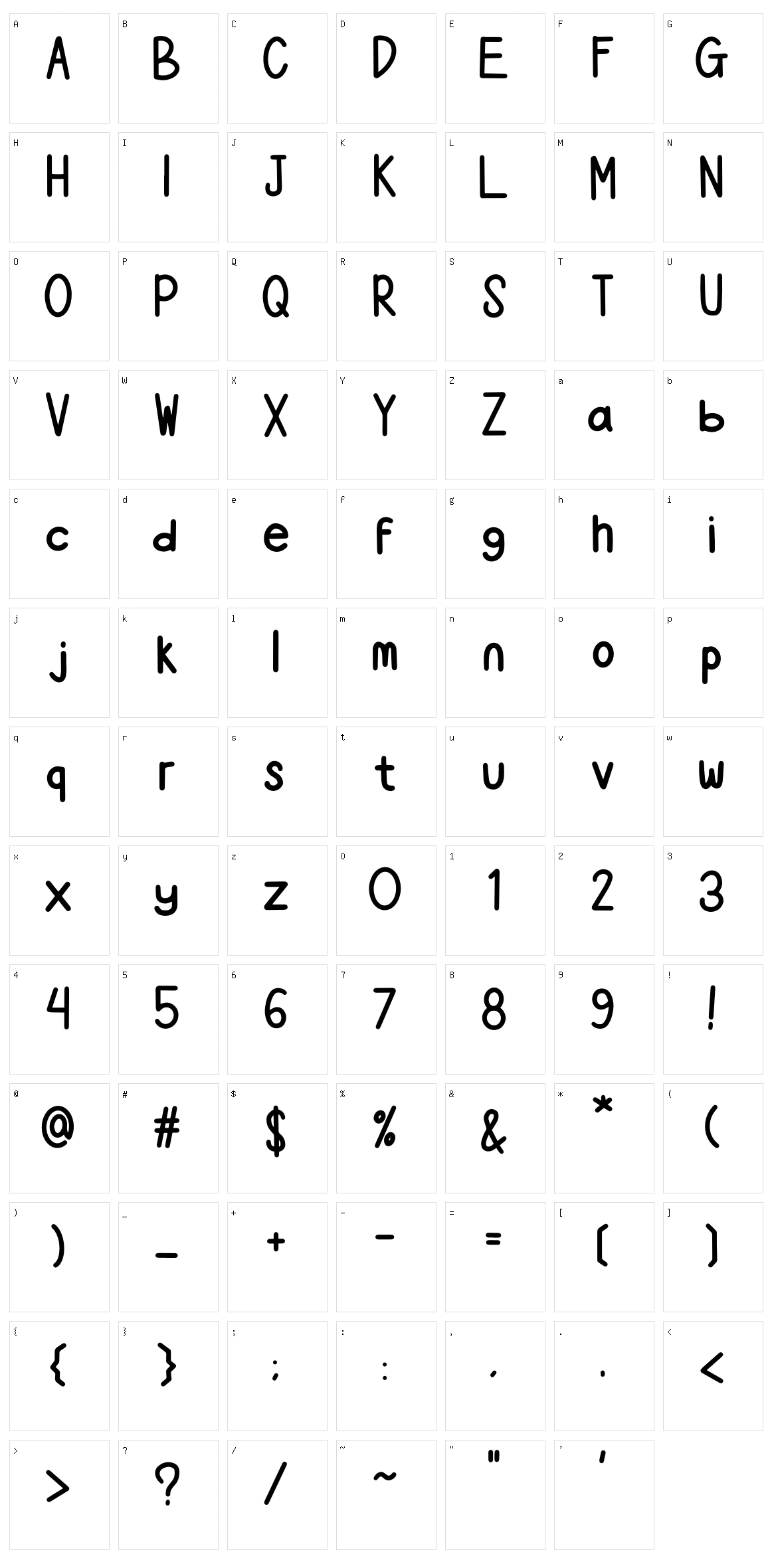
The free font Toys Toss is carefully designed by Dwi Wahyu, showcasing a thoughtful balance of creativity and usability and falls under the Cartoon font style. When you download the ZIP file, it contains only 48.5 KB of font files, making it lightweight and quick to download. Please review the license details below to understand permitted usage and distribution rights. If license information is not available, we recommend using this font for personal projects only or contacting the author directly for commercial usage permissions.